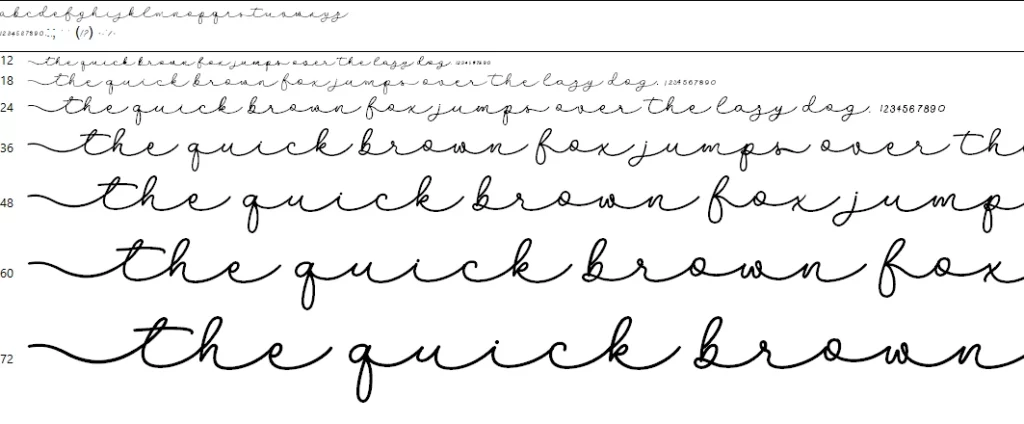
Good day, world!! Here’s a set of premium and trendy Script handwriting fonts that appear like signatures. Sudsakorn Signature Typeface is the name of the lovely font. If you need to bring sensitivity to your project, this font is for you. Dharmas developed and shared the font. The gorgeous Script and Handwritten font come in two formats: TTF and OTF. This Font is also PUA encoded, which is an excellent feature. It’s simple to convert this lovely Script and handwritten font to a web font.
Among other things, the Script and Handwritten typeface is an excellent option for banner layouts, realistic brand messages, product graphics, technical files, invitation cards, and wedding cards. The typeface’s best applications, on the other hand, are in-sport titling and growth.
Sudsakorn Signature Font View